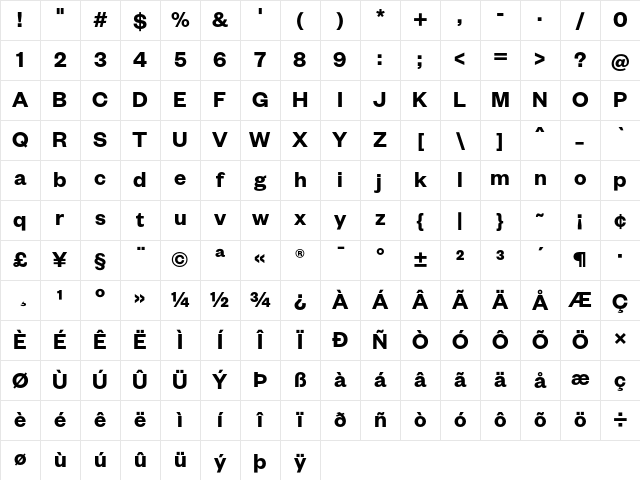
Foundry: Klim Type Foundry
Designer: Kris Sowersby
Design Context for Founders Grotesk SemiBold
Founders Grotesk SemiBold takes a clean, functional approach - its unadorned letterforms prioritise legibility and work reliably across screen and print environments. Its bold stroke weight gives it real presence on the page.
Font Pairing: Works well alongside a characterful serif or display font that can carry the expressive load while Founders Grotesk SemiBold handles the functional copy.
Pro Tip: Use Founders Grotesk SemiBold for UI labels, navigation, and short-form body copy where clean legibility is the priority.